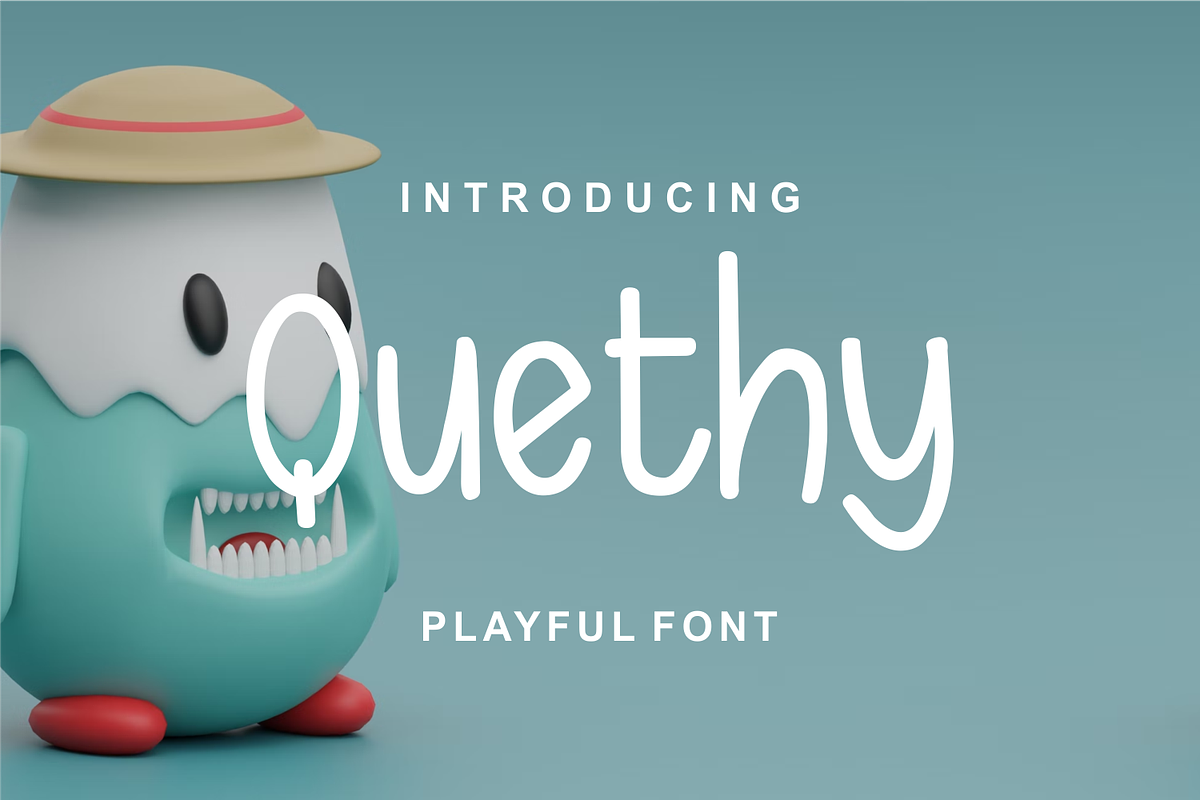
Quethy Font Free Download is a modern handwritten script typeface that combines elegance with a touch of personality. With its flowing curves, natural rhythm, and stylish flair, Quethy is perfect for branding, wedding invitations, social media graphics, signature logos, and lifestyle blog designs.
This font brings warmth and sophistication to your typography, mimicking the charm of real handwriting with smooth, expressive lines. Whether you're designing custom stationery or creating visual content for a creative brand, Quethy adds a personal, polished touch.
Designers love Quethy for its versatile use across both digital and print media. Want to make your message feel more refined and heartfelt? Download Quethy Font Free Download and let your next project shine with handwritten elegance.